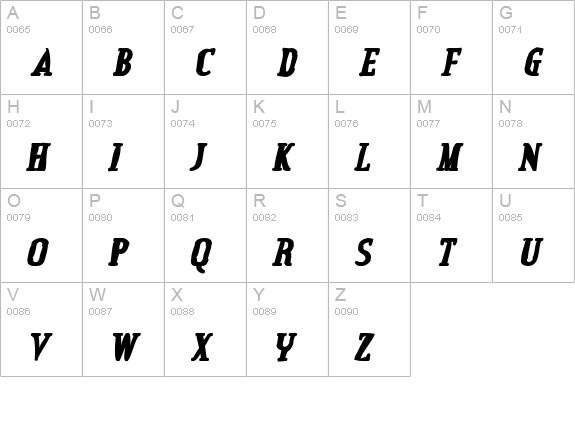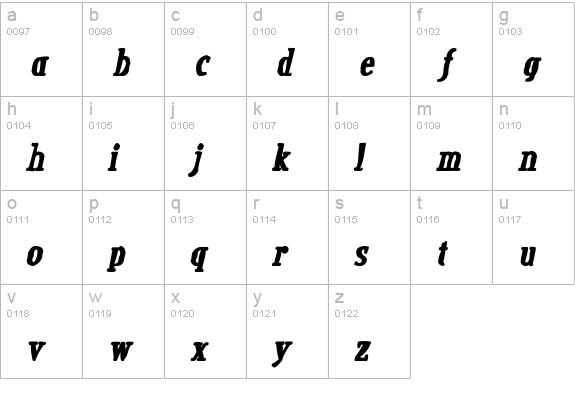
Credit Valley Ink Italic is a distinctive, italic variant in the Credit typeface family \xE2\x80\x94 well suited to design and typography projects.
Credit Valley Ink Italic is a unique and stylish font that exudes creativity and artistic flair. Its elegant and flowing italic design adds a touch of sophistication to any project. This font is perfect for adding a personal touch to invitations, greeting cards, logos, and more. The best part? Credit Valley Ink Italic is available for free download at FontsMarket.com. So, whether you're a designer looking to elevate your projects or someone who simply appreciates beautiful typography, this font is a must-have in your collection. Download Credit Valley Ink Italic today and let your creativity soar!